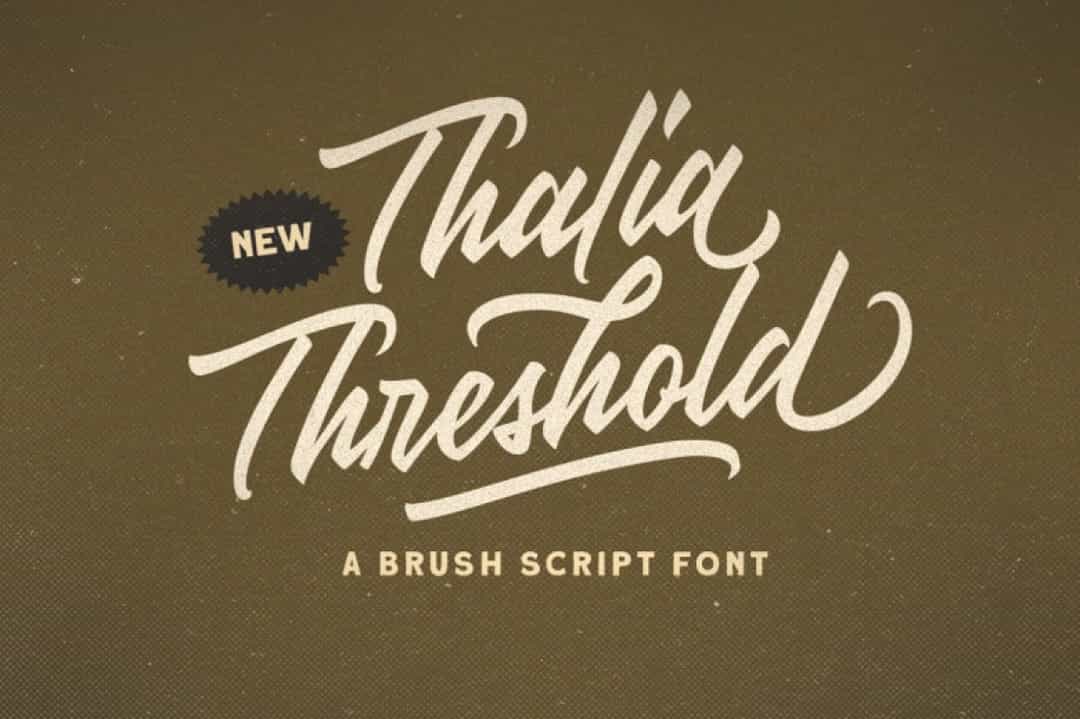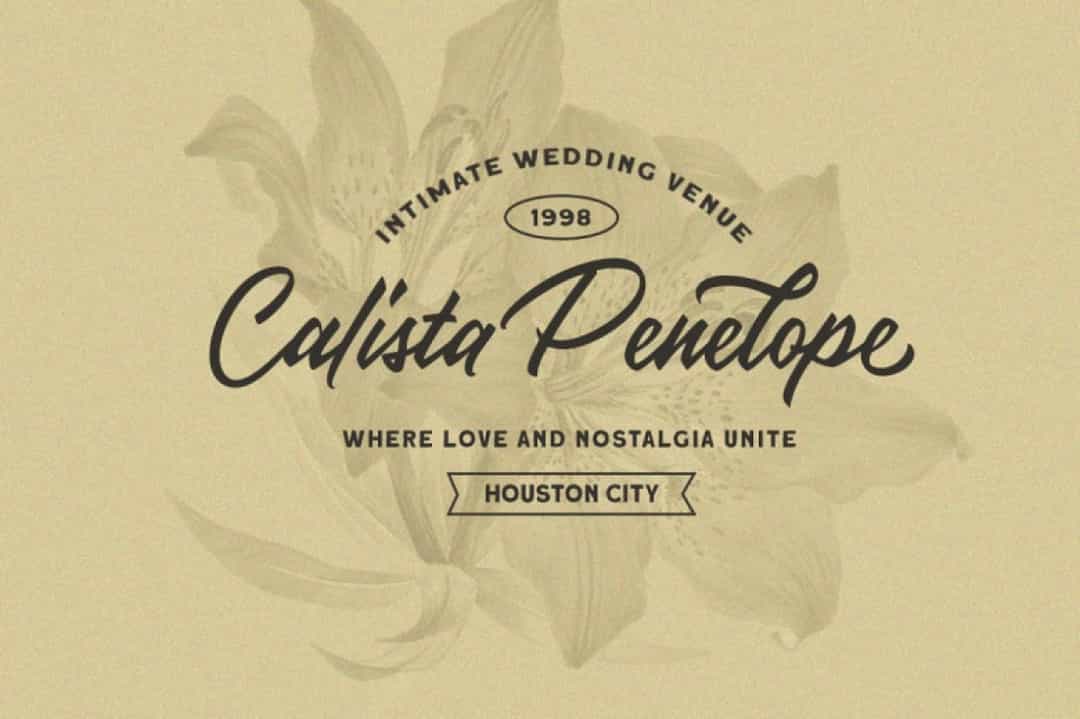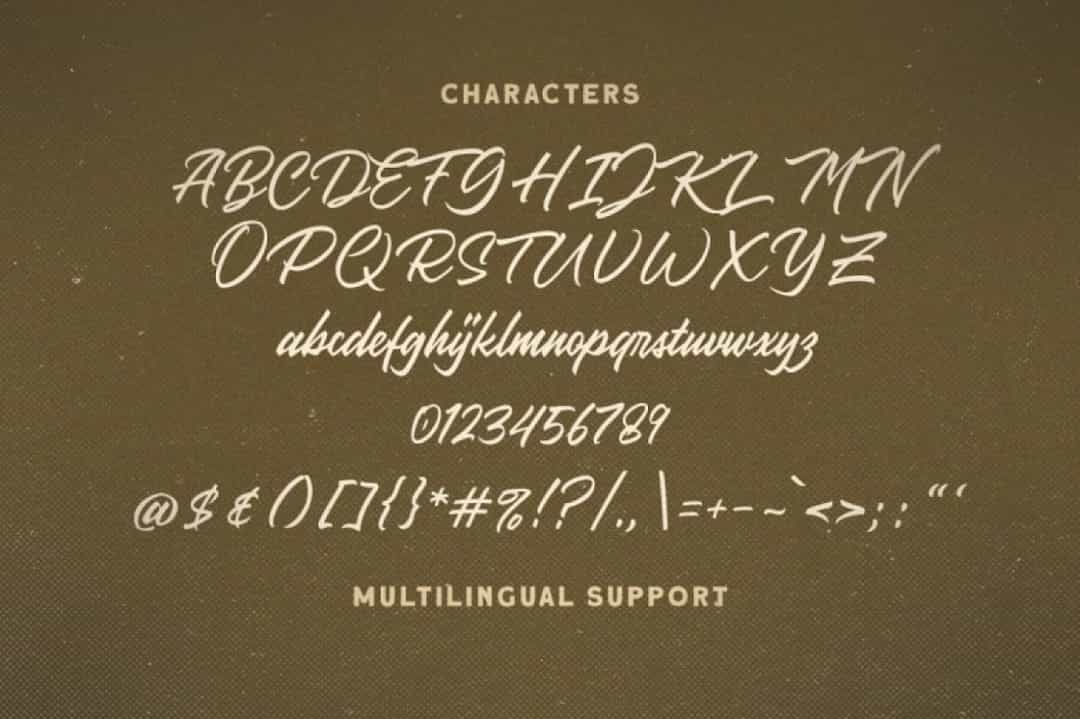
Thalia Threshold is an appealing brush script font with classic styling. You can switch up characters for added visual interest. Designed specifically to use for logos and formal forms such as invitations and labels as well as formal forms like invitations for events and logos used for invitations like magazines, books, greeting cards, wedding invitations, labels, logos, greeting cards, wedding invitations packaging fashion, makeup stationery, magazines, books, novel labels or any form of advertisement (such as magazines, books etc).